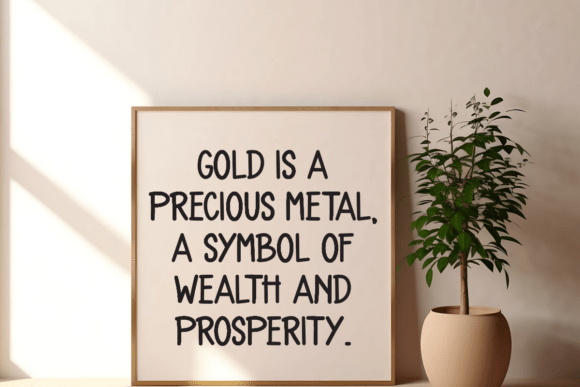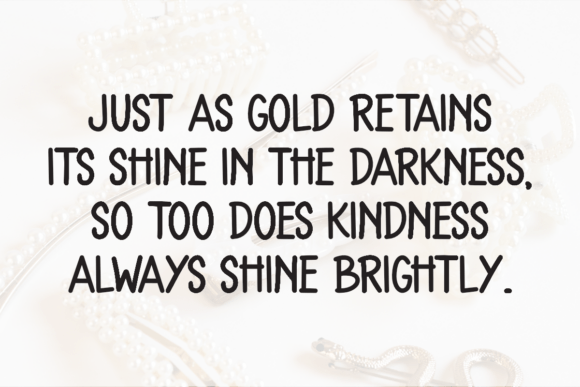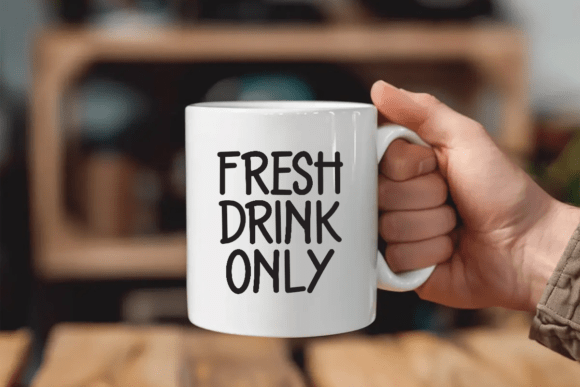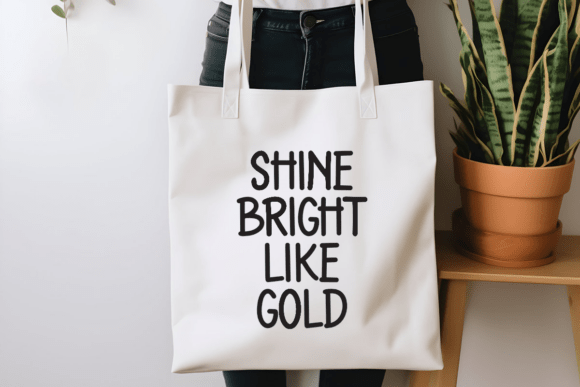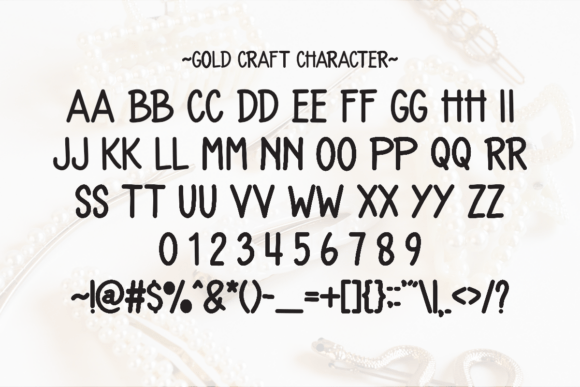
Introduction to Gold Craft Font
Gold Craft is a playful handwritten font that adds a touch of personality to any creative project.
Its clean strokes and casual charm make it ideal for branding, DIY crafts, packaging, and anything that needs a handcrafted, friendly vibe This font feels like your favorite artisan labelโwarm, simple, and stylish.
Key Features of Gold Craft Font